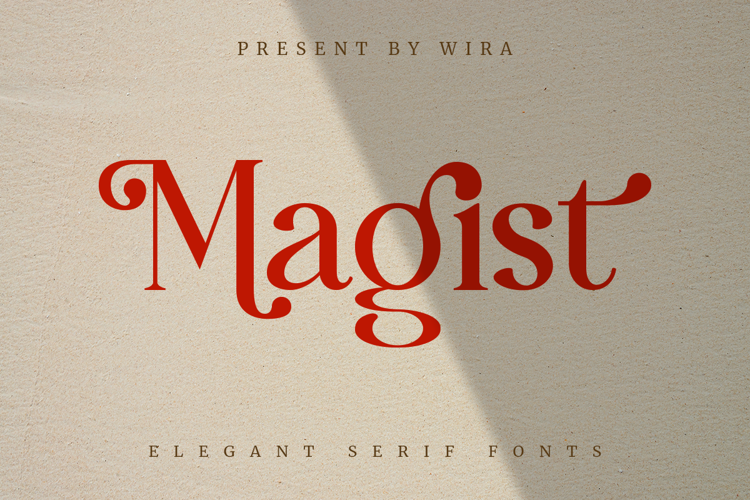
Magist Font
by Wirastudio
About Magist Font
I'm present to you for new font, Magist!
Magist Serif Display a elegant style serif font with alternatives and ligatures that create stunning logos, quotes, posts, blog posts. branding projects, magazine imagery, wedding invitations, and much more